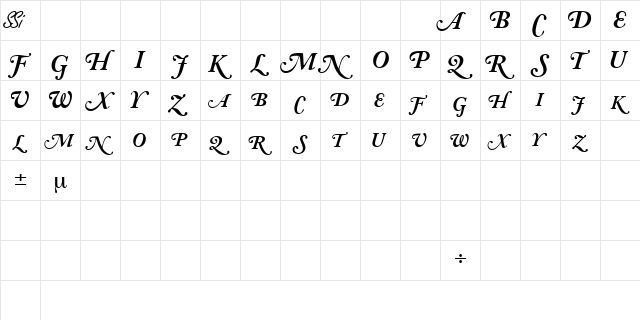
CaslonSwashBlackSCapsSSK Italic
Design Context for CaslonSwashBlackSCapsSSK Typeface
CaslonSwashBlackSCapsSSK flows with the natural rhythm of handwritten lettering, making it ideal for designs that call for warmth and personal expression.
Font Pairing: Combine CaslonSwashBlackSCapsSSK with a simple geometric sans for maximum contrast — the tension between flowing curves and clean structure is a classic typographic pairing.
Pro Tip: Use CaslonSwashBlackSCapsSSK for short runs of text — names, titles, or taglines. Extended body copy in script faces tires the eye quickly.